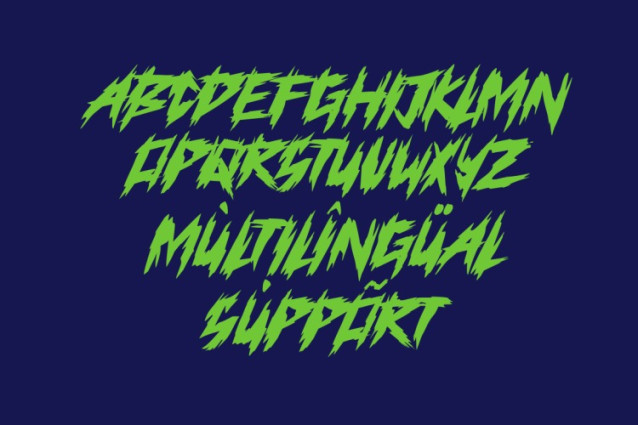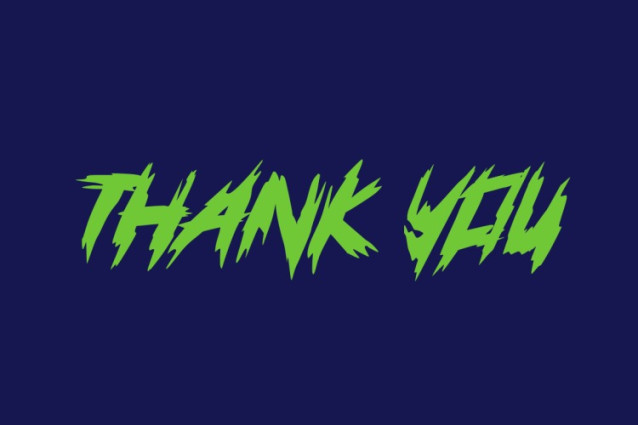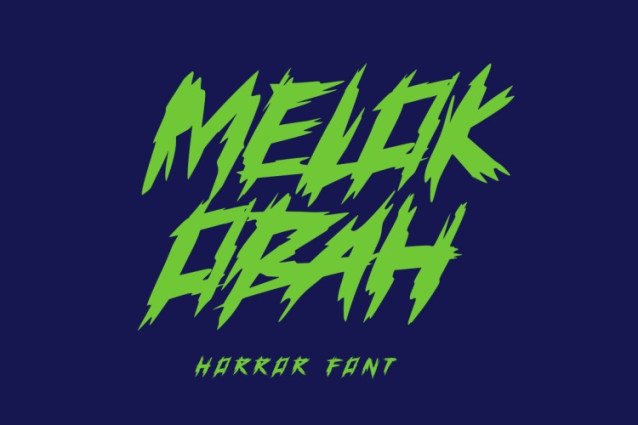
Melok Obah Font
Melok Obah Font is the ultimate horror display font! It caters to a global audience. It is perfect for posters, marketing materials, creepy movie titles, Death metal logos, Halloween crafts and a variety of creepy projects.